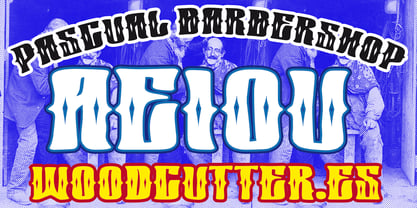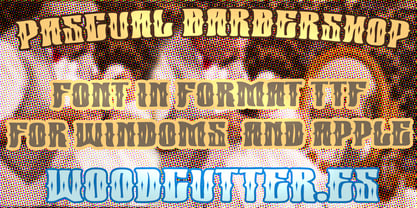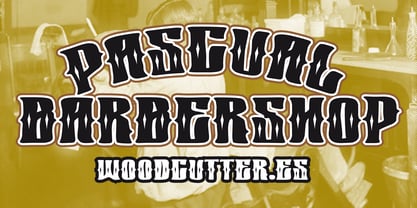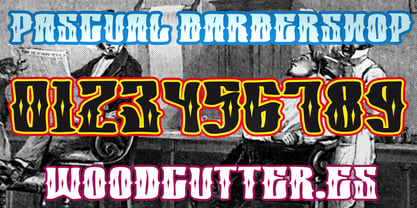
Pascual Barbershop
by Woodcutter
The Pascual Barbershop Font Family was designed by Jordi Manero and published by Woodcutter. Pascual Barbershop contains 1 styles. More about this family
“Pascual Barbershop” is an uppercase font that evokes the elegance and classic style of retro barbershops. Each letter is adorned with intricate filigree details, adding a touch of handcrafted sophistication. Its design recalls a bygone era where ornamental details were key in signs and advertisements for traditional businesses. With a vintage and refined aesthetic, this typeface is perfect for projects aiming to convey nostalgia, authenticity, and a sense of tradition, whether in logos, menus, or posters. It includes accents, making it functional for a wide variety of languages.